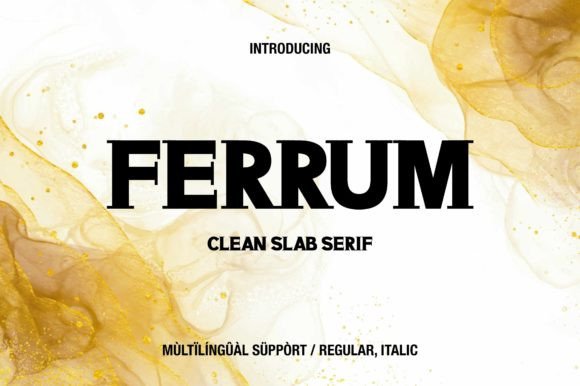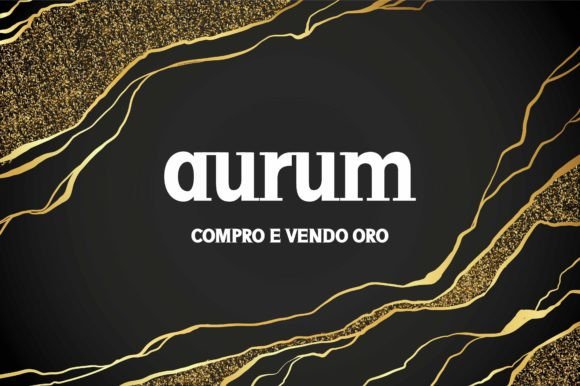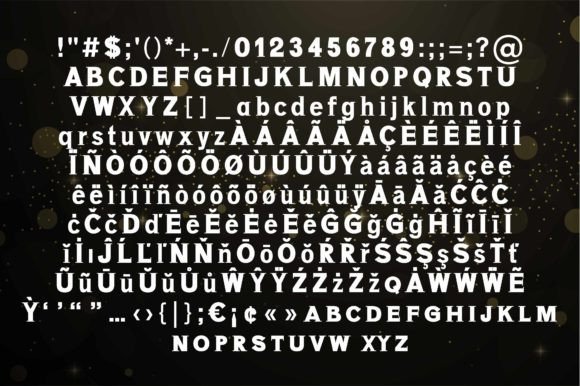
Ferrum
Ferrum: An Elegant and Minimalist Slab Serif Typeface
Ferrum is an elegant and minimalist slab serif typeface. It’s the perfect choice when you’re uncertain about using serif, slab serif, or sans serif fonts. Add Ferrum to your creative projects, and it will make them come alive!
Key Features of Ferrum
• Elegant Design: Offers a sophisticated and refined look suitable for various applications.
• Minimalist Style: Features clean lines and simple forms for a modern aesthetic.
• Slab Serif Structure: Combines the readability of serifs with a contemporary feel.
• Versatile Application: Ideal for projects requiring a balance between traditional and modern design.
Ideal Uses for Ferrum
Ferrum’s unique characteristics make it particularly well-suited for:
When incorporating Ferrum into your designs, consider these tips:
• Use for both headlines and body text to showcase its versatility.
• Experiment with different sizes to highlight the font’s elegant features.
• Consider pairing with sans-serif fonts for contrast in complex layouts.
• Utilize its minimalist style to create clean, modern designs with a touch of sophistication.
Ferrum is an excellent choice for designers looking to add an elegant and minimalist slab serif font to their typographic toolkit. Its ability to bridge the gap between serif, slab serif, and sans serif makes it a versatile option for various design projects. Whether you’re working on branding, creating editorial layouts, or developing content that requires a balance of tradition and modernity, Ferrum offers the perfect blend of style and functionality.
Furthermore, Ferrum’s unique design allows it to shine in various contexts. From sleek digital interfaces to sophisticated print materials, this font can elevate your projects with its distinctive style. Its elegant yet functional appearance works particularly well in designs that require a thoughtful and engaging mood.
In conclusion, Ferrum is a font that truly captures the essence of modern elegance in typography. Its ability to work well in both minimalist projects and more elaborate layouts showcases its flexibility. For those looking to add a touch of refined charm to their work, Ferrum can enhance themed creations with its distinctive style. It’s the perfect choice for designers seeking to make a sophisticated, stylish impact across a wide range of creative projects.